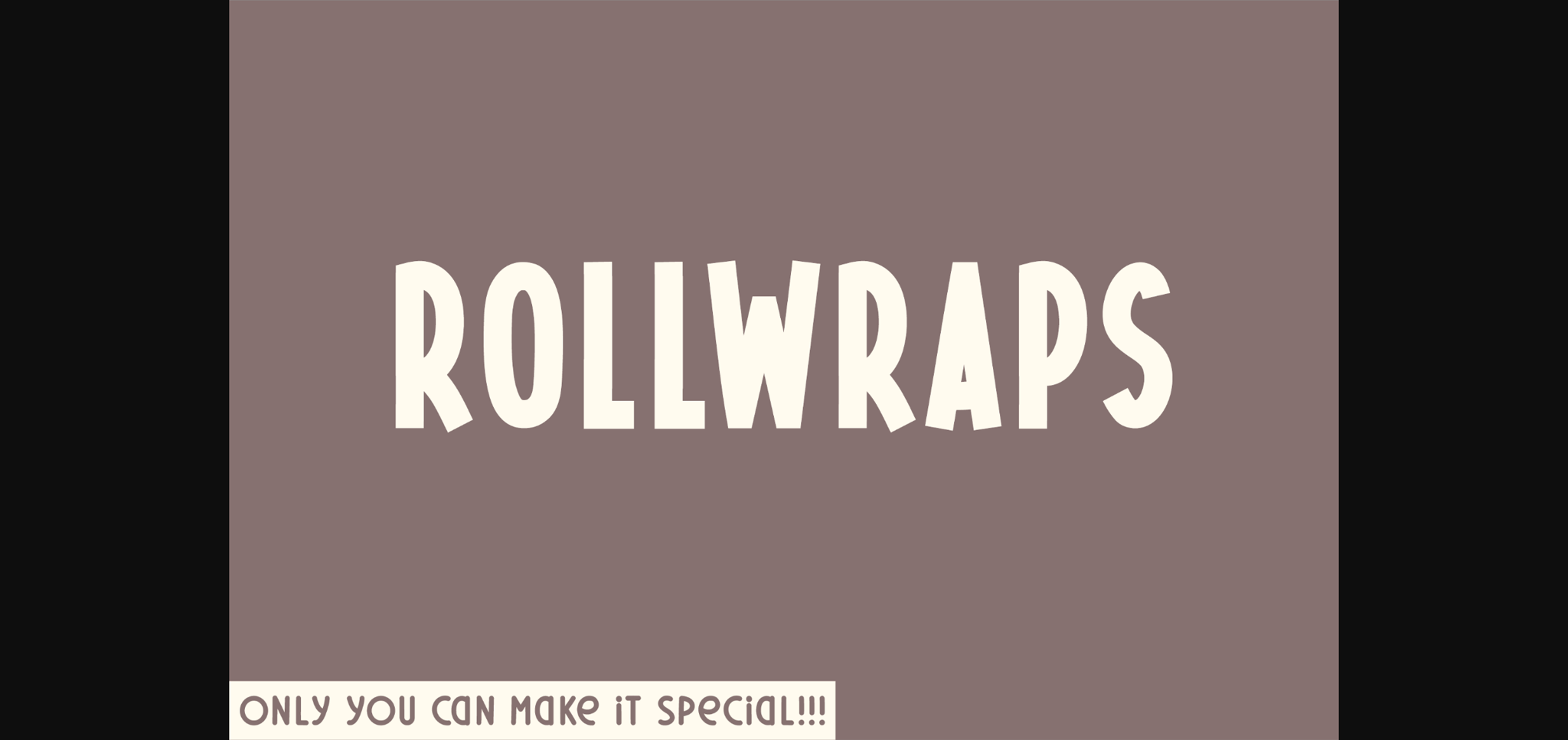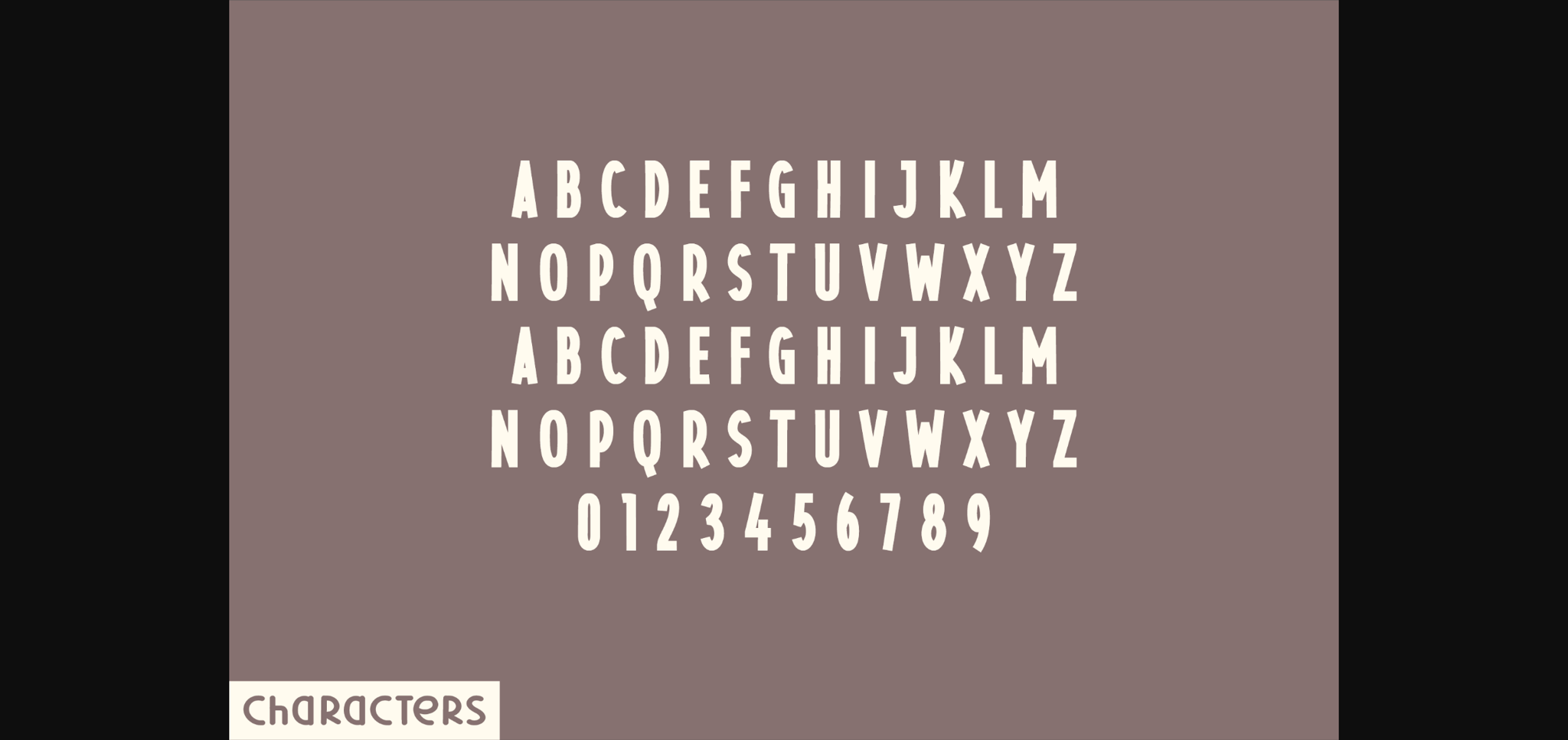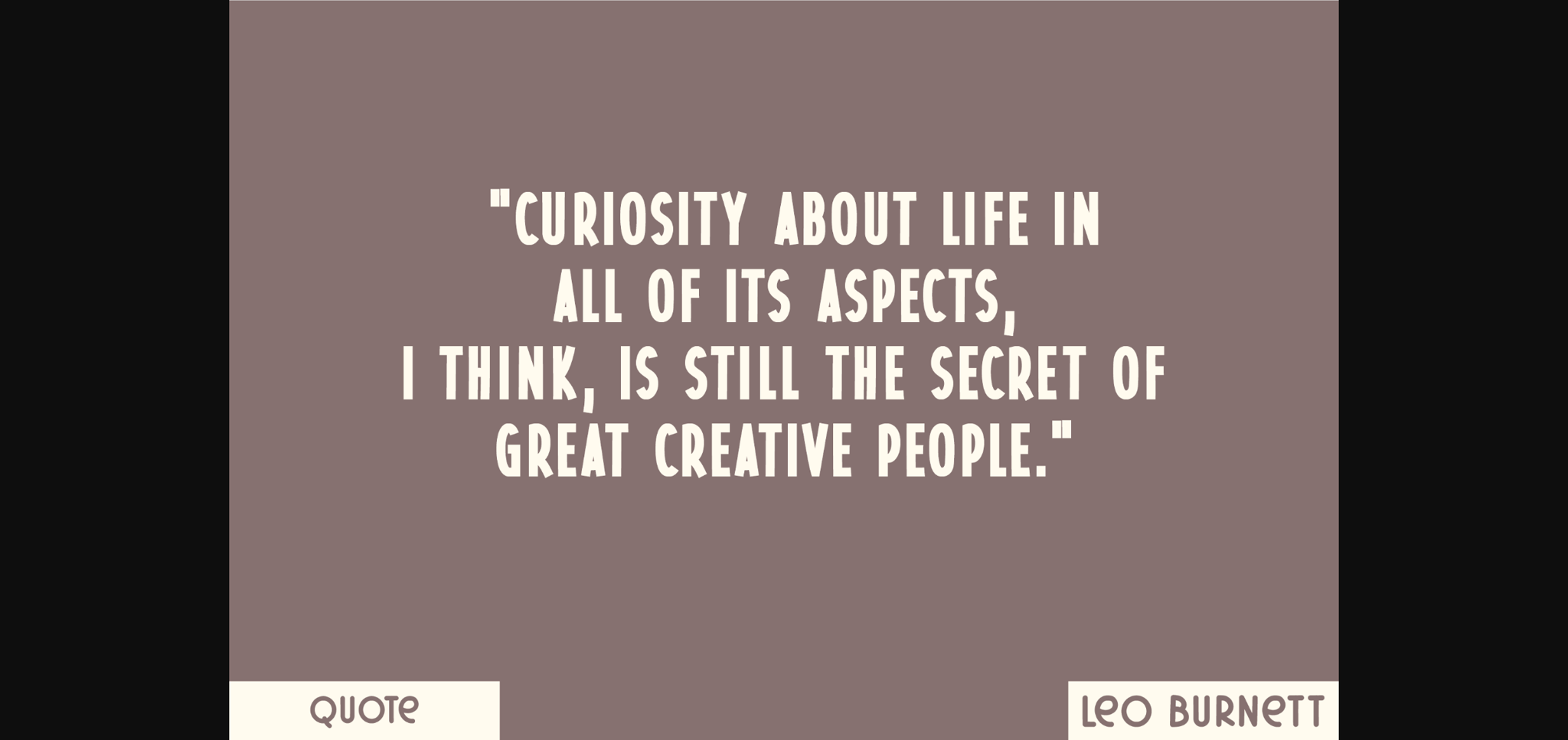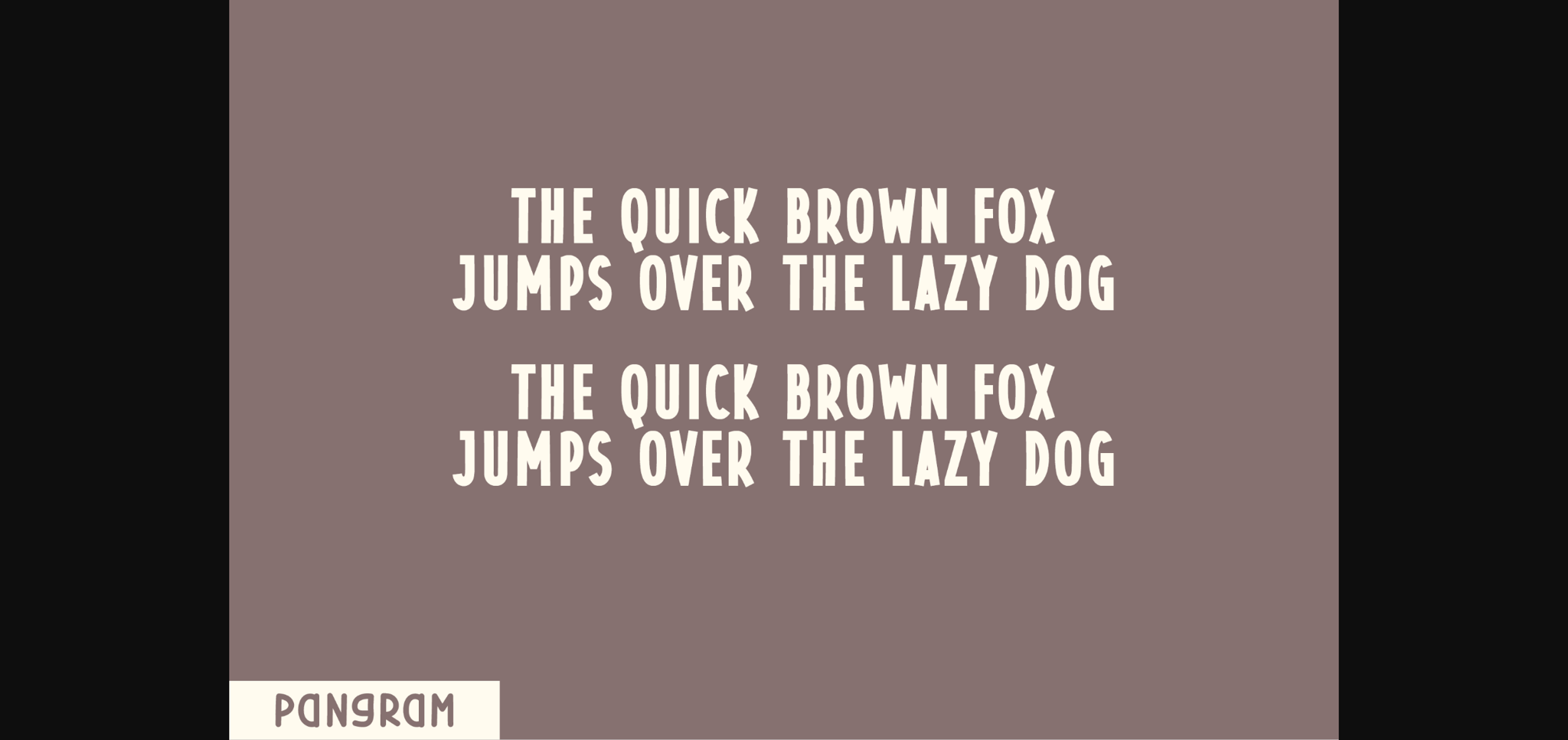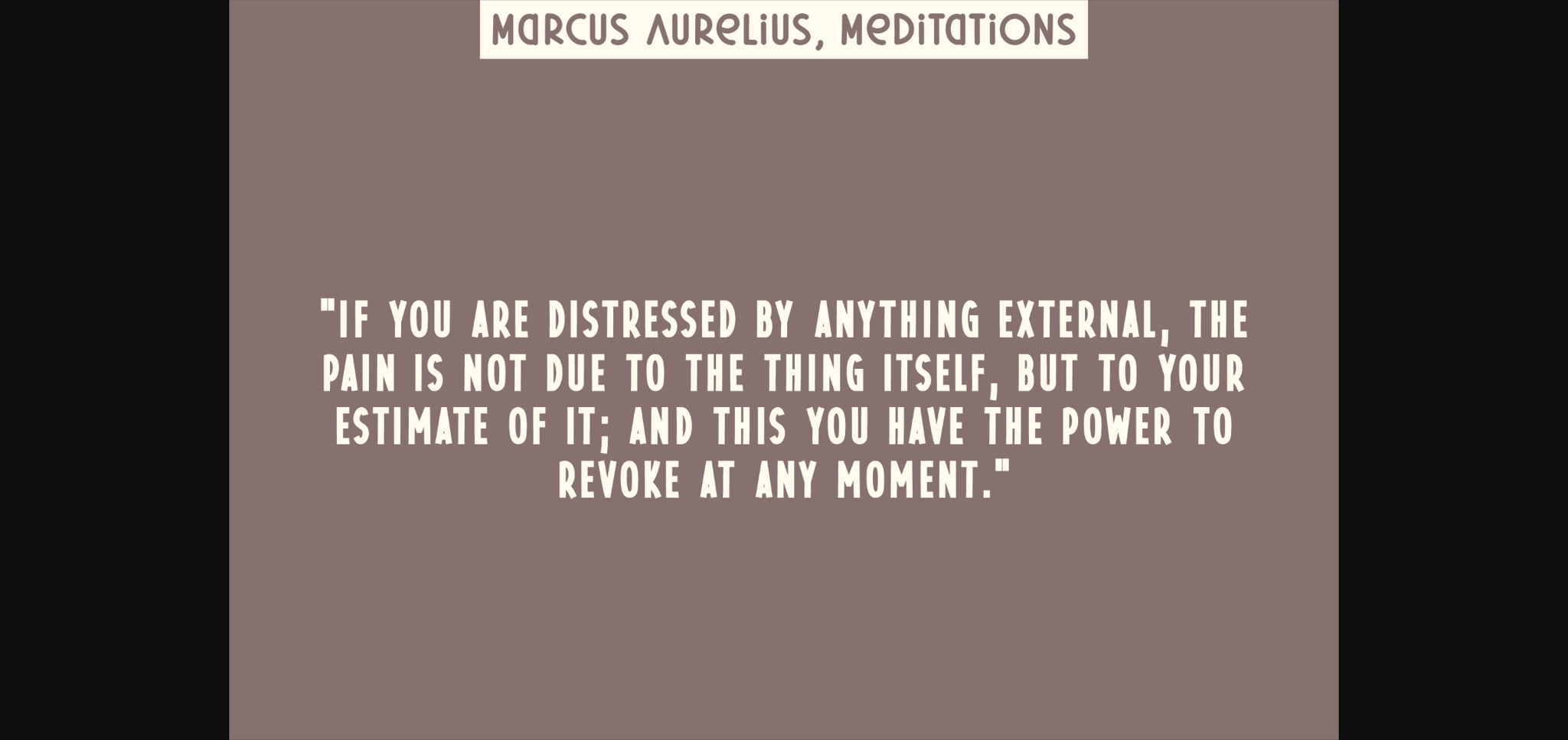
HomeSans Serif FontsRollwraps Font Sans Serif Fonts Rollwraps Font FacebookTwitterPinterestWhatsApp 1 of 7 ... Rollwraps Font Poster 2... Rollwraps Font Poster 3... Rollwraps Font Poster 4... Rollwraps Font Poster 5... Rollwraps Font Poster 6... Rollwraps Font Poster 7... About Rollwraps Font Rollwraps is a natural sans serif font created without changing a single node in each character’s indentation – this makes this font very interesting and unique. Perfect for quotes, notes, tees, and any product design. DOWNLOAD NOW People also explored Wonderland Script Font The Glasses Font Honeylove Font Dinomiko Font Magenta Flower Forgi Font Welcome Valentine Font Aquero Font Wanengu Font 198 0 TagsRollwraps Font Previous articleVeggies FontNext articleTerrific Font LEAVE A REPLY Cancel reply Comment: Please enter your comment! Name:* Please enter your name here Email:* You have entered an incorrect email address! Please enter your email address here Website: Save my name, email, and website in this browser for the next time I comment. Personal Use Free Dear Monita Personal Use Free Read more about this font Dimensional Look71 Personal Use Free Read more about this font Midnight Show Personal Use Free Read more about this font Milda Personal Use Free Read more about this font BLOG Using Fonts in Digital Marketing: Tips to Strengthen Your Brand Identity In the realm of digital marketing, every visual element plays a crucial role in shaping a brand's identity, and fonts are no exception. The... Where to Buy American Fonts Online in 2024 Elegant Wedding Invitation Fonts – Handwritten & Script Fonts The 10 Best Handwriting Fonts to Add Personality to Your Designs